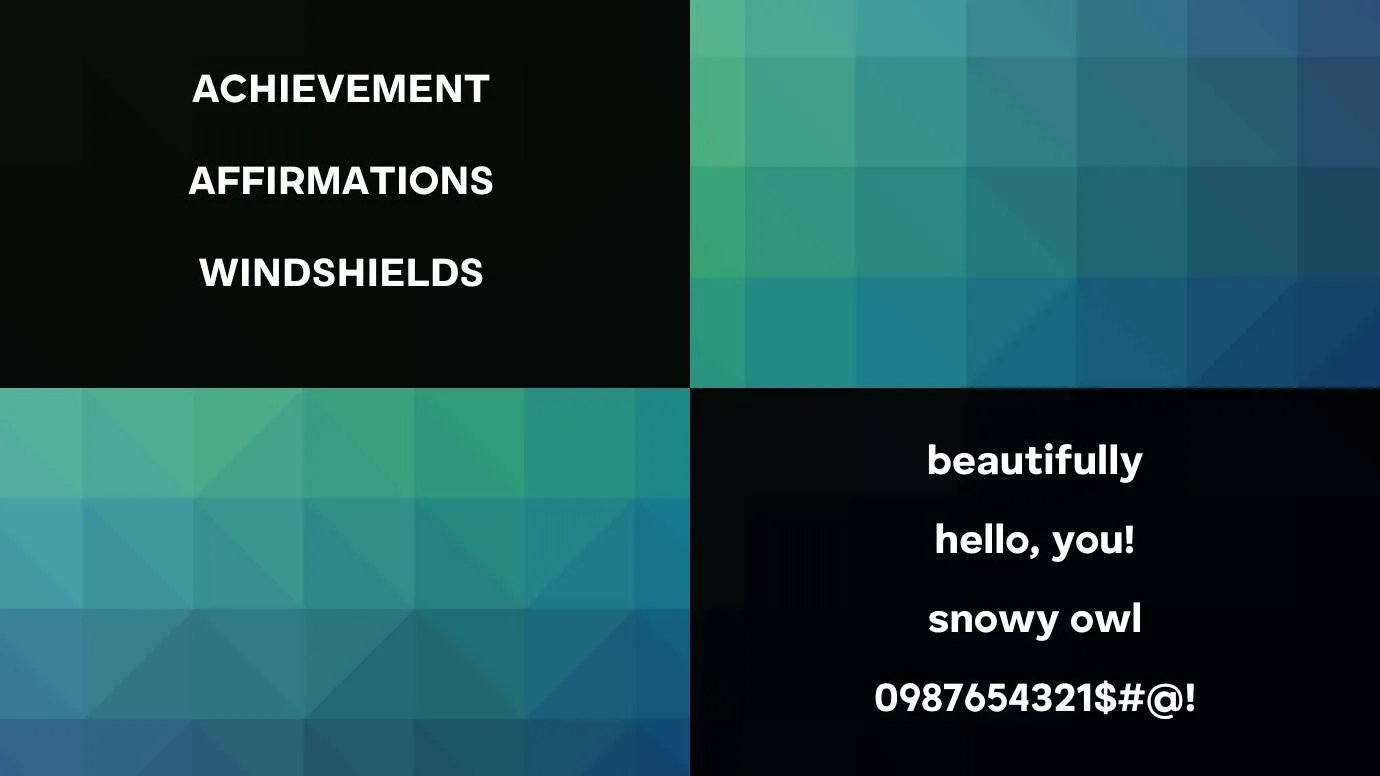
Are you looking for a new and legible sans-serif typeface for your projects? Today, we introduce a very unique charming sans-serif typeface that has very unique characters and glyphs named Human Sans Font which was designed by a British type designer Tim Radville.
This typeface style has a number of unique features that make it attractive among other typefaces. Its large height characters and glyphs make it highly legible at small sizes as well as in logo design. Another is its wide variety of weights and widths give it great versatility.
The typeface has a matching personality with other typefaces and can provide cool performance with the pairing of futura font. It has since been used by a number of high-profile clients, including the British Broadcasting Corporation (BBC) and many others.
This font style is also commonly used among designers due to its copy-paste and pairing function. This font is also commonly used in the branding and advertising industry due to its versatility. Moreover, it is also best for both print and digital applications which makes it a great choice for use in today’s multi-platform world.
You can also utilize the typeface in your display designs and pair it with other typefaces like metropolis font which is much similar to this and has a pairing personality.
Creator of Human Sans Font
This simple and unique typeface is created by British type designer Tim Radville. A lot of designers used his typefaces in their designs.
This font style is designed with a unique and consistent style. This attractive style is a mixture of various characteristics, including upper and lower case letters, numbers, special characters, punctuations, glyphs, symbols, and a lot of language support.
| Name | Human Sans Font |
| Designer | Tim Radville |
Is Human Sans a good font for a website?
Yes, This Font can be a good font for website purposes. You can utilize this font to give your website a more modern and sleek look.
Is Human Sans a good font?
Yes, Human Sans is a good font. It is highly legible at small sizes and has a wide variety of weights and widths that make it versatile.
Is Human Sans font outdated?
No, This Font is still a popular choice for designers. It is a stylish and elegant font that can be used for a variety of purposes.